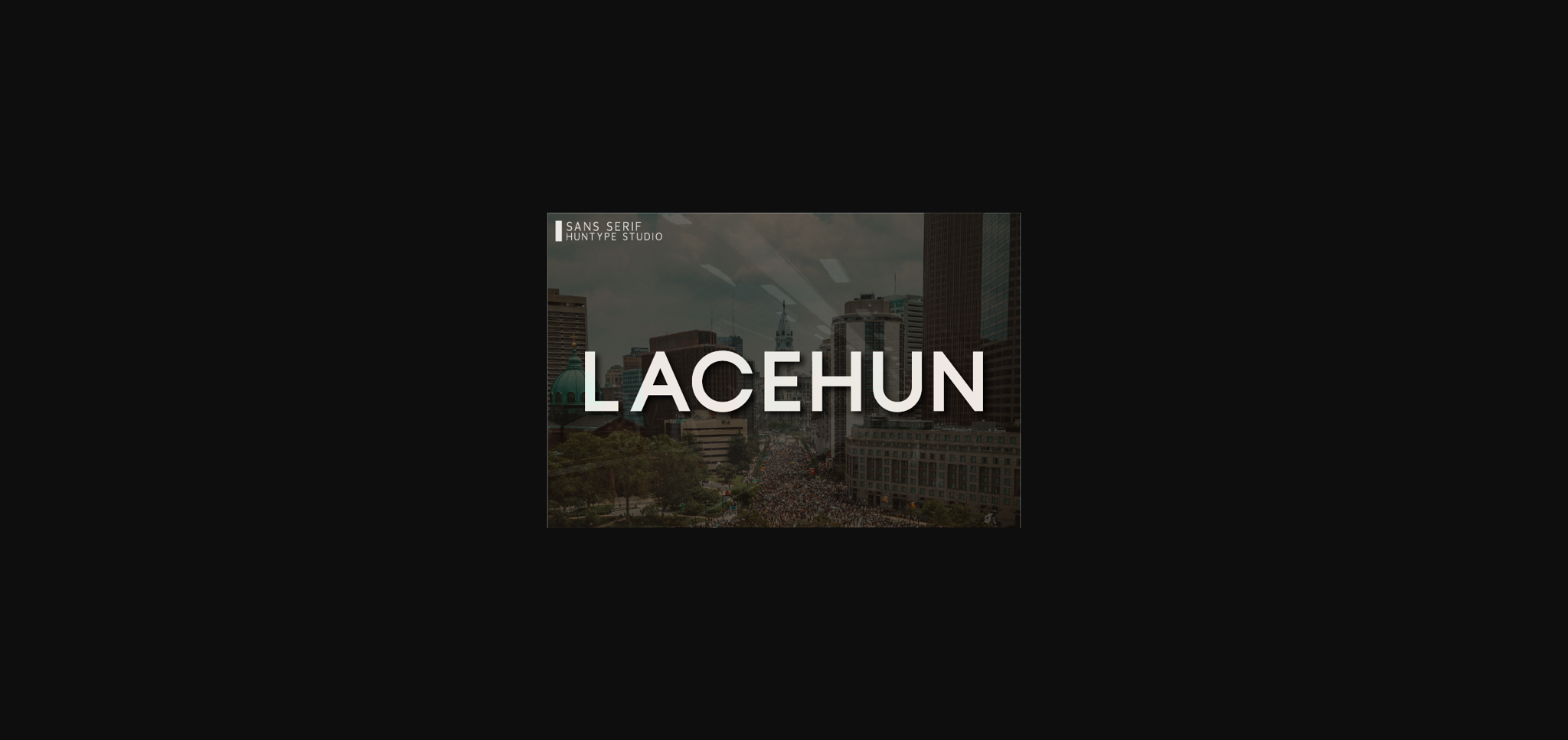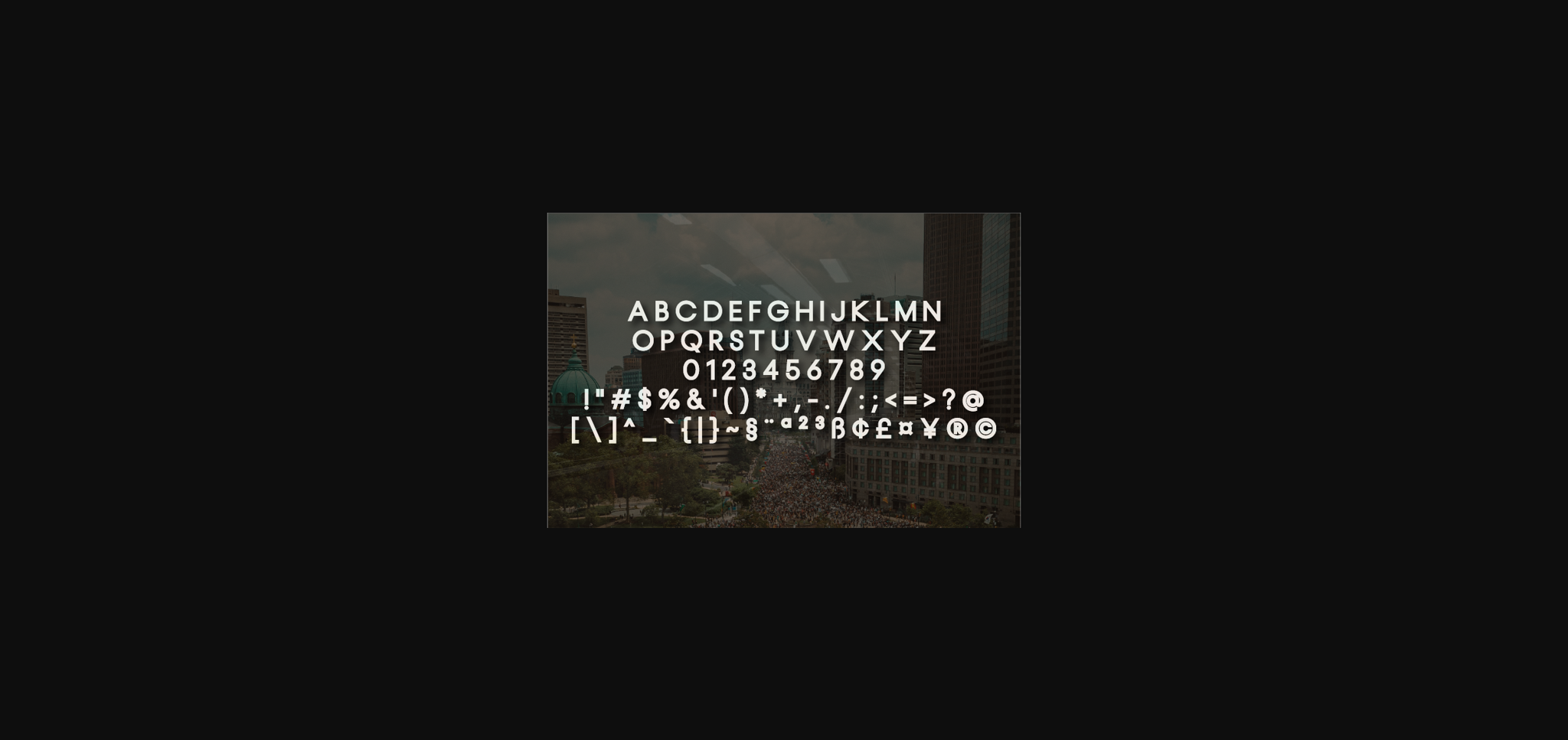
HomeSans Serif FontsLacehun Font Sans Serif Fonts Lacehun Font FacebookXPinterestWhatsApp 1 of 4 ... Lacehun Font Poster 2... Lacehun Font Poster 3... Lacehun Font Poster 4... About Lacehun Font Lacehun is a modern and elegant sans serif font. It will complement any design need perfectly with its perfectly balanced mix of the smooth and sharp! DOWNLOAD NOW People also explored Yellow Butterflies Font The Horizontal Font Simple Bold Text Font Nole Love Font Chocoladine Font Snowing Night Font Hello Heartache Font Parasite Font Samround Font 286 0 TagsLacehunLacehun Font Previous articleShoffer FontNext articleGolde Font LEAVE A REPLY Cancel reply Comment: Please enter your comment! Name:* Please enter your name here Email:* You have entered an incorrect email address! Please enter your email address here Website: Save my name, email, and website in this browser for the next time I comment. Personal Use Free Bolt Electric Personal Use Free Read more about this font Cloudy Night Personal Use Free Read more about this font Bettari Personal Use Free Read more about this font Solaria Personal Use Free Read more about this font BLOG Best Fonts for T-Shirt Design – Top 2025 Picks In 2025, t-shirt design has become more than just fashion—it's a form of self-expression. Whether you're... Free Fonts Risk: Why Free Fonts Can Be Dangerous for Designers Elegant Wedding Invitation Fonts – Handwritten & Script Fonts How to Install and Use Fonts on Windows, macOS, and Web Projects